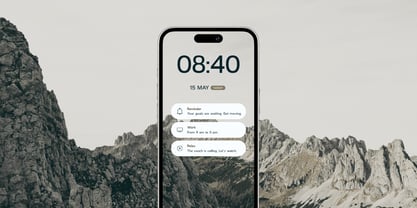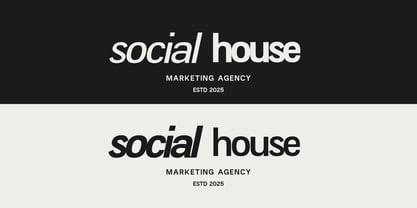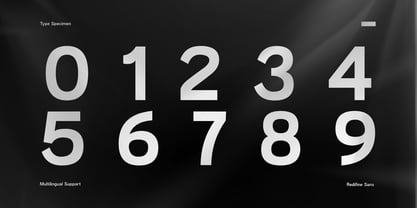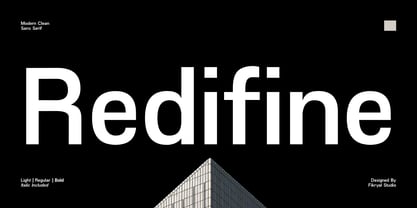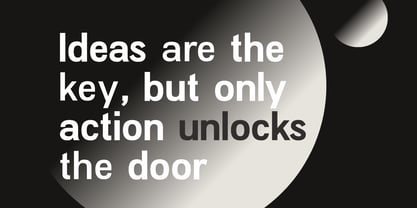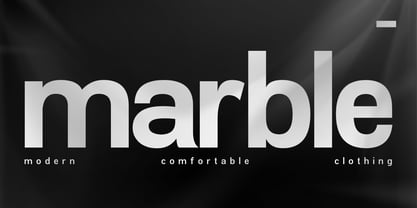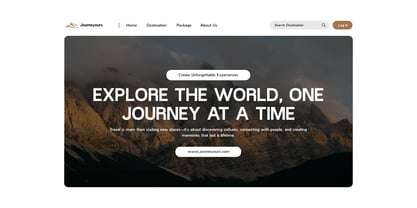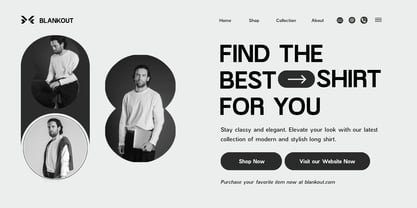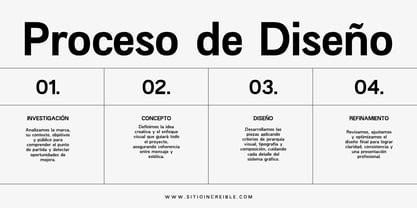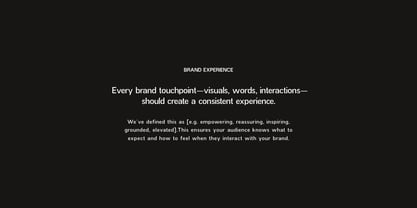
Redifine
Redifine is a clean, modern sans serif font that embodies clarity, elegance, and versatility for any project. Its minimalist structure and contemporary aesthetic make it ideal for designers seeking a professional and polished appearance without sacrificing readability. Crafted with precision, this font family strikes a perfect balance between simplicity and functionality, making it suitable for a wide range of design applications—from branding and corporate identity to editorial layouts and digital interfaces. Redifine offers multiple weights and styles, including Light, Regular, Bold, and their Italic counterparts, providing the flexibility to create strong visual hierarchies and dynamic typography compositions. Additionally, Redifine supports an extensive range of multilingual characters, ensuring your designs can effectively engage a global audience with ease.